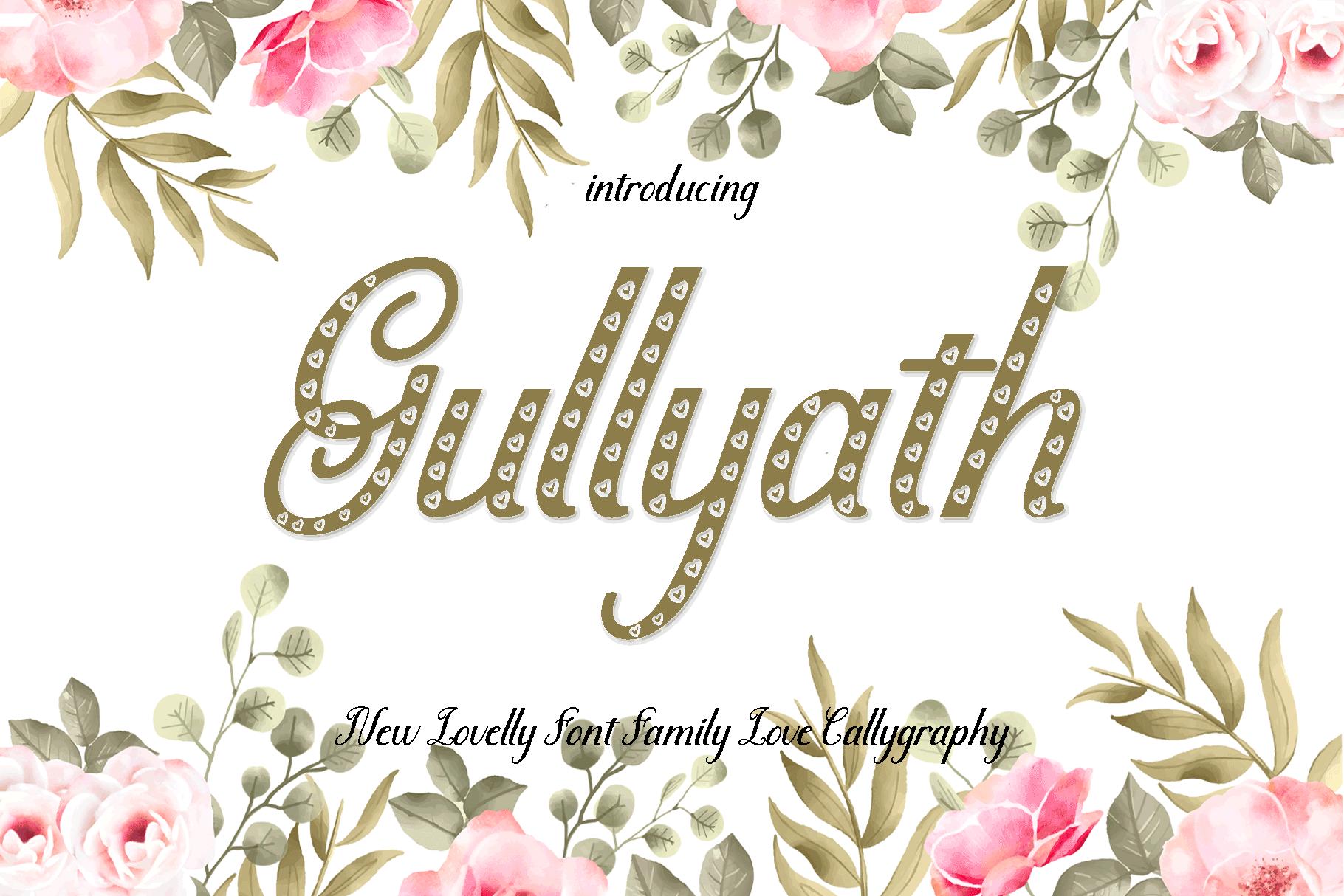
Gullyath Font Description
Gullyath is a cute handwritten font. It features heart-themed characters that makes it the perfect font to make your designs stand out! It will look outstanding in any context, whether it’s being used on busy backgrounds or as a standalone headline!